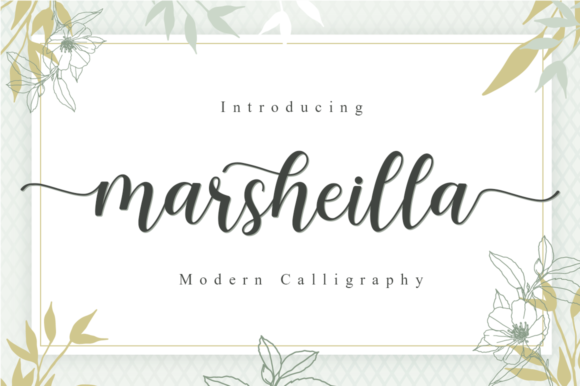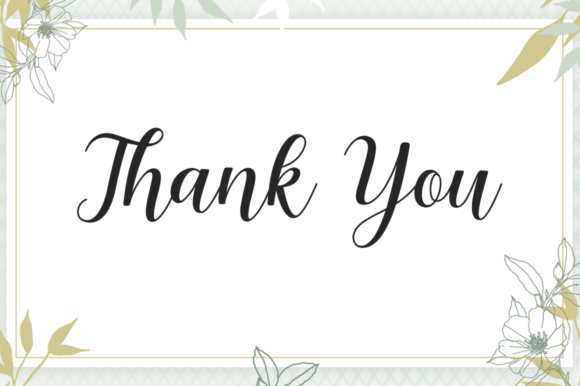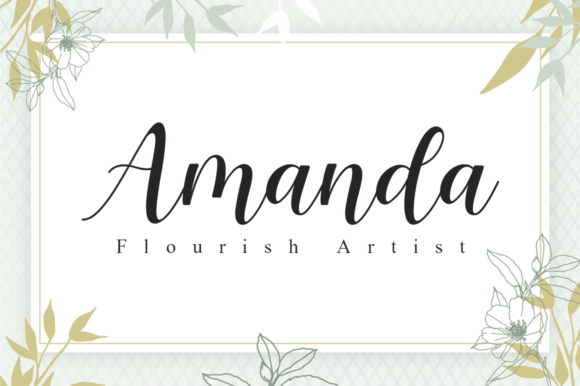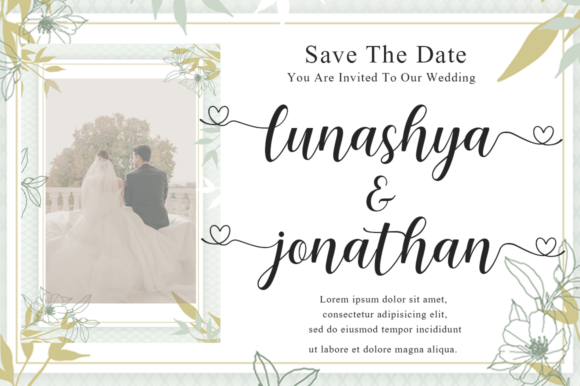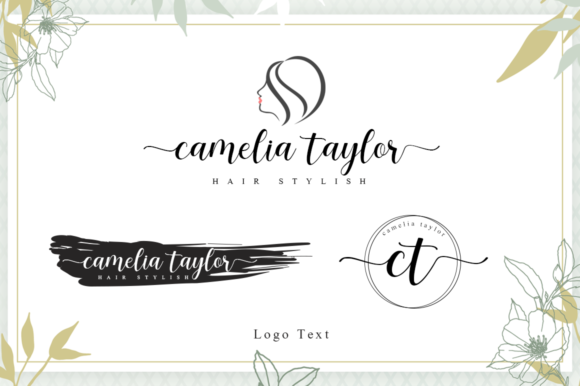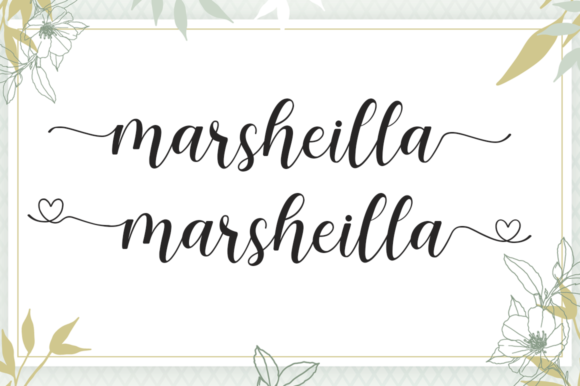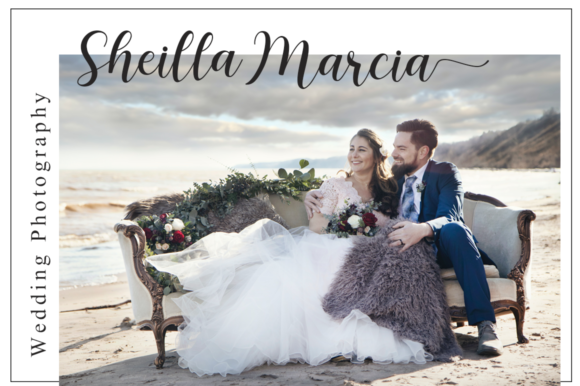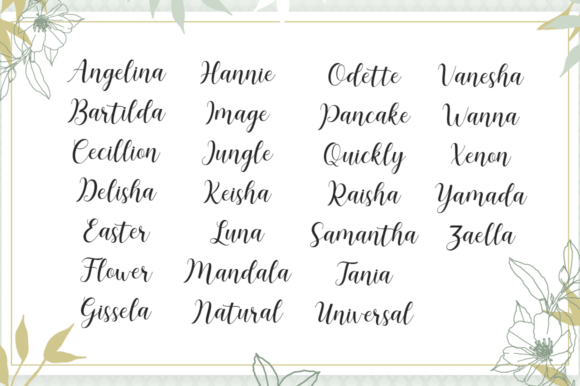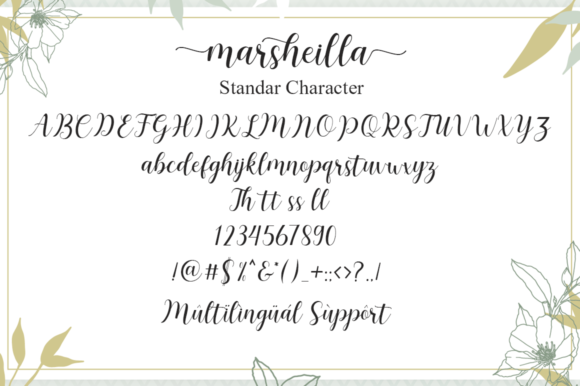
Marsheilla Font
About Marsheilla Font
Marshiella is a gorgeous script font with an incredibly friendly feel. It features gorgeous swashes and ligatures that make this script incredibly versatile. Whether you’re looking for fonts for Instagram or calligraphy scripts for DIY projects, Marshiella will turn any creative idea into a true piece of art!